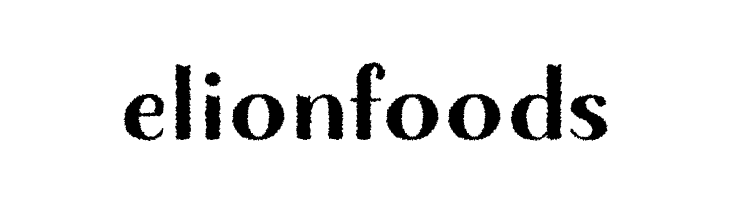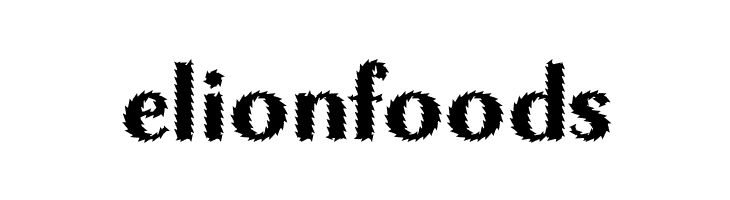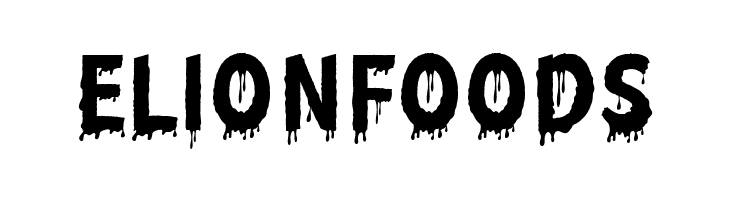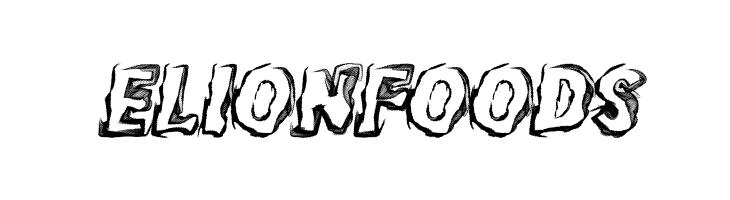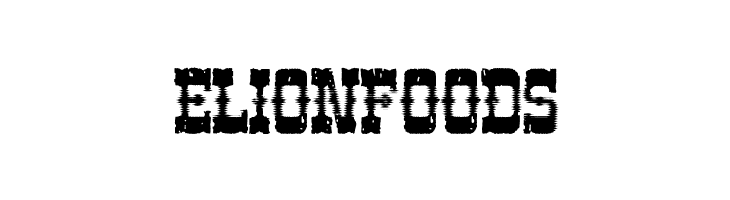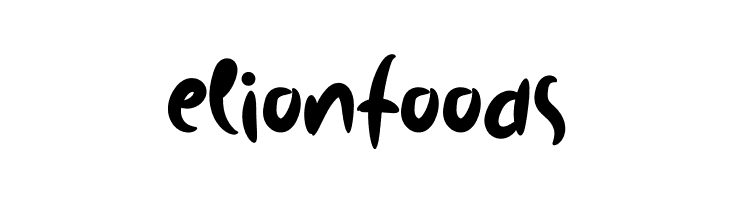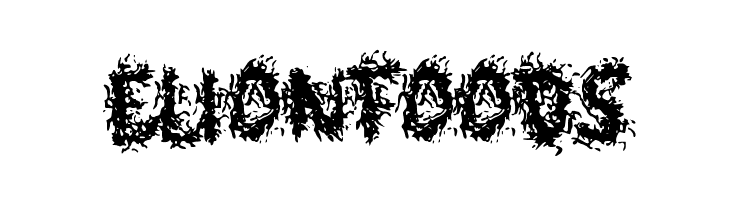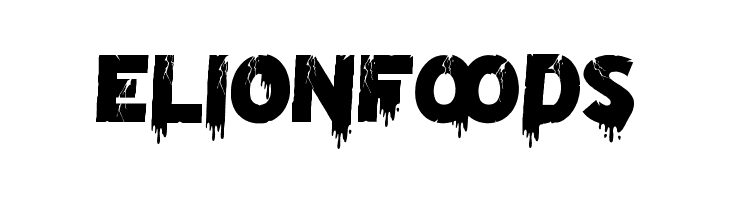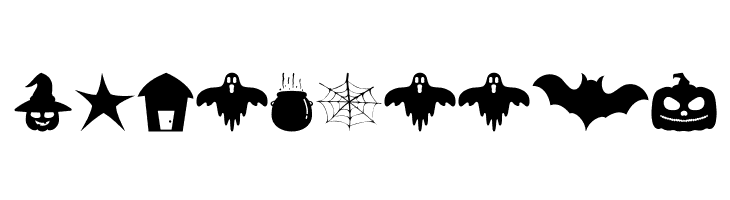
A playful, hand-drawn font with a spooky, rustic style.
A jagged, thorn-like font perfect for Halloween themes.
A bold, dripping font with a spooky, oozing effect.
A bold, italic font with a ghostly, textured appearance, perfect for spooky themes.
A bold, distressed font with a vintage horror aesthetic.
A bold, playful font with a spooky, hand-drawn style.
A chaotic, thorny decorative font ideal for horror-themed designs.
A bold, dripping font with a horror-inspired, gothic style.
A playful, bone-themed font perfect for spooky designs.
A Halloween-themed symbol font with bold, black silhouettes of spooky icons.